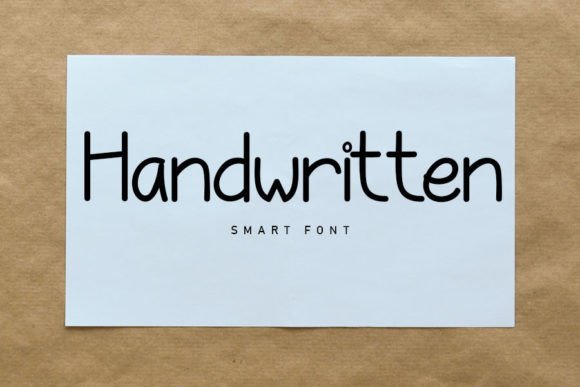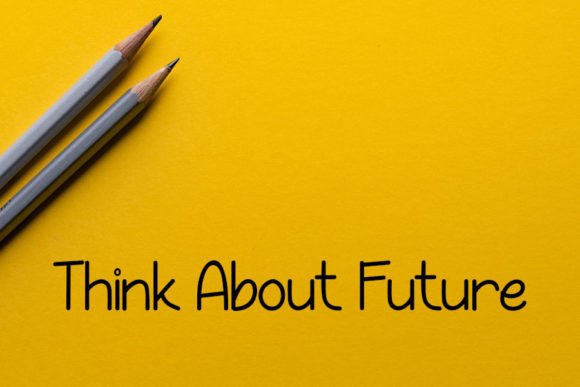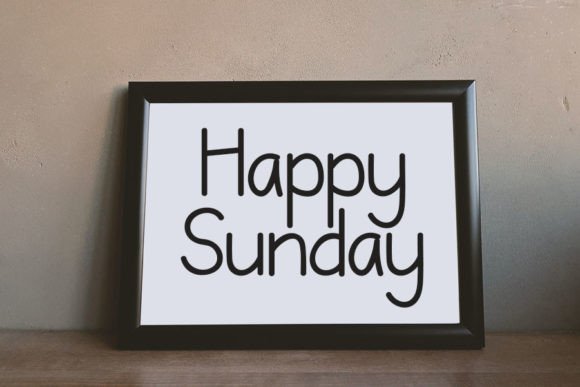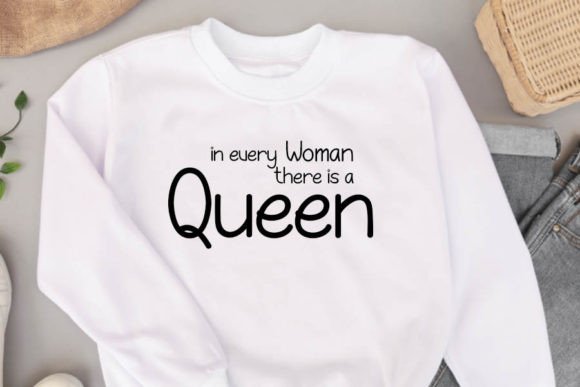
Introducing Diskey Font: Elevate Your Designs with a Stylish Handwritten Touch
Are you on the hunt for a font that adds a personal touch to your designs? Look no further than Diskey Font! This stylish handwritten font is versatile and can be used across a wide spectrum of applications, from crafting beautiful greeting cards to creating eye-catching headlines. With Diskey, you can guarantee a fresh and neat touch to each of your creations, making them stand out in a crowded digital landscape.
What Makes Diskey Font So Special?
Diskey Font is more than just a typeface; it’s a design element that can transform your projects. Here are a few reasons why designers and crafters love Diskey:
- Versatility: Whether you’re working on a digital project or a print design, Diskey Font adapts seamlessly. Its clear and readable style makes it perfect for body text, while its stylish flair ensures it shines in headlines and titles.
- Handwritten Charm: In an era of digital dominance, a handwritten font like Diskey adds a warm, personal touch to your designs. It’s ideal for creating a connection with your audience and making your content feel more approachable.
Applications of Diskey Font
The versatility of Diskey Font means it can be used in a multitude of projects. Here are some ideas to get you started:
- Greeting Cards: Add a personal touch to your greeting cards for birthdays, holidays, or just because. Diskey’s elegant handwritten style makes it perfect for conveying heartfelt messages.
- Headlines and Titles: Make your headlines pop with Diskey Font. Its stylish flair ensures your titles grab attention and set the tone for your content.
- Branding and Packaging: For businesses looking to add a personal touch to their branding, Diskey Font can be a game-changer. Use it for logos, packaging, or marketing materials to stand out.
- Digital Content: From blog posts to social media graphics, Diskey Font can elevate your digital content. Its readability and style make it perfect for online platforms.
Tips for Using Diskey Font Effectively
To get the most out of Diskey Font, consider the following tips:
- Mix and Match: Combine Diskey with other fonts for a unique look. Its handwritten style pairs well with sans-serifs for a modern contrast or with serifs for a more traditional feel.
- Play with Sizes: Use Diskey in various sizes to create visual hierarchy. Larger sizes are perfect for headlines, while smaller sizes work well for body text.
- Experiment with Colors: Don’t be afraid to experiment with different colors. Diskey Font looks great in bold colors for a statement look or in more subdued tones for a minimalist approach.
Diskey Font is a stylish and versatile handwritten font that can elevate your designs. Whether you’re a professional designer or a DIY enthusiast, Diskey offers a fresh and neat touch that’s sure to impress. With its wide range of applications and ease of use, it’s an excellent addition to any design toolkit. So why wait? Explore the possibilities of Diskey Font today and take your designs to the next level!